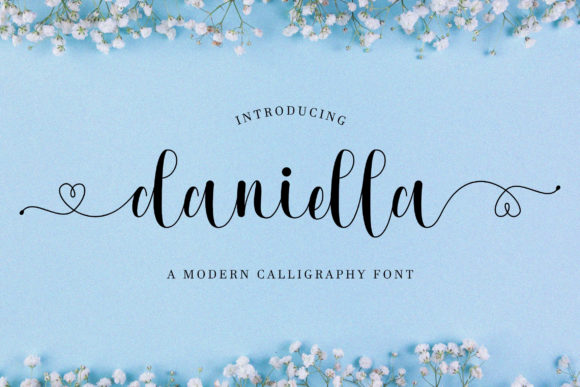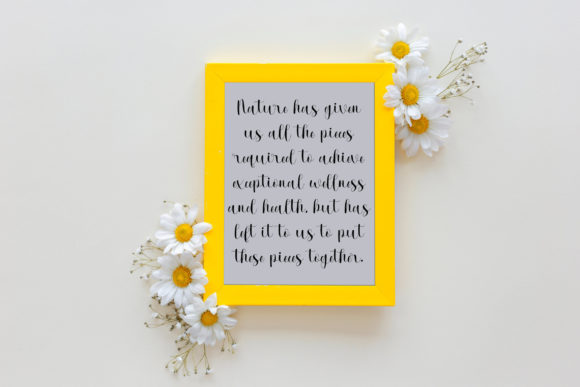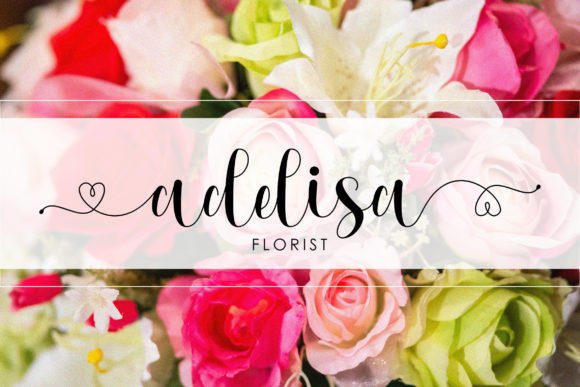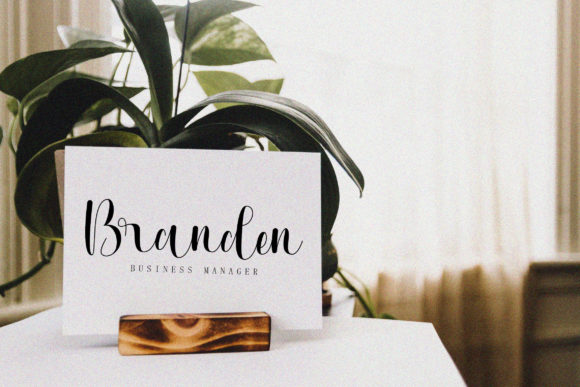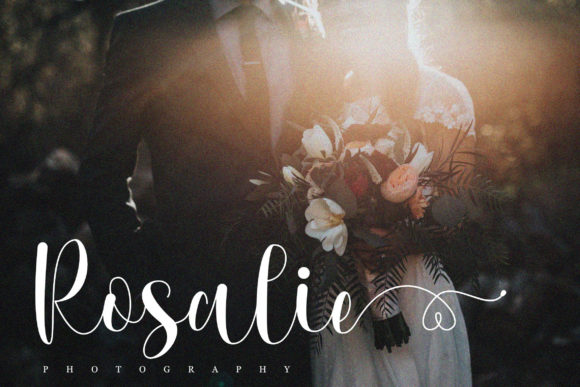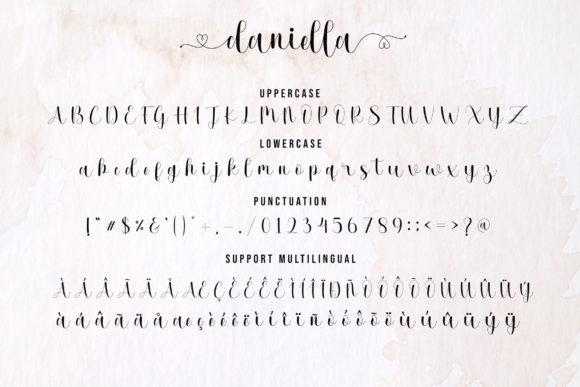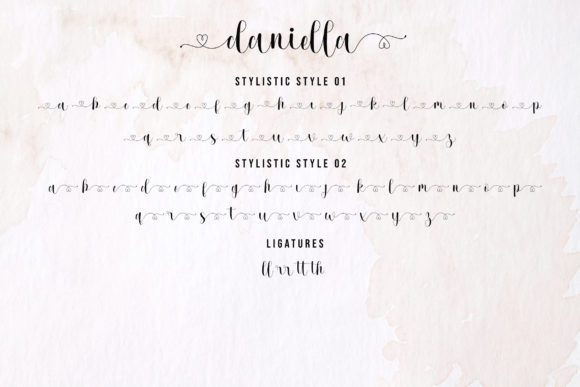
Daniella Font
About Daniella Font
“Daniella” graces the design realm as a romantic and dainty script font, radiating an aura of charm and delicacy. Crafted with care, it becomes the perfect companion for a wide array of branding projects, including logos, t-shirt designs, creative products, and beyond. This font’s PUA encoding ensures effortless access to all the glyphs and swashes, empowering you to unleash your creativity with ease.
Envision “Daniella” as a tender whisper, delicately painting your designs with strokes of romance and grace. Its intricate curves and graceful lines infuse a sense of elegance, transforming your projects into visual treasures that captivate the eye. As you incorporate this font into your creations, you’ll embark on a journey where your concepts evolve into captivating visual narratives.
Beyond its visual allure, “Daniella” encapsulates an essence of romance and artistic finesse. Its dainty script nature imparts a touch of authenticity, turning your designs into more than just visuals – they become expressions of sentiment and creativity.
“Daniella” stands as an indispensable asset in your design toolkit. Its versatility ensures seamless harmony with various styles, themes, and intentions. Whether you’re crafting a captivating logo, adorning t-shirts with a touch of grace, or adding an enchanting note to creative products, this font amplifies the resonance of your message.
In a world where design conveys emotions and resonates with hearts, “Daniella” becomes your instrument for crafting designs that leave a lasting impression. Let its romantic strokes be the artistic flourishes that enhance your creations, infusing them with a touch of tenderness and artistic flair. Embrace the dainty allure of “Daniella” and watch as it transforms your projects into captivating showcases of refined creativity, resonating with all who engage with them.